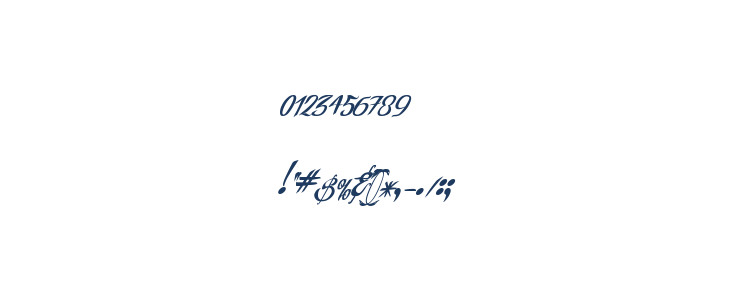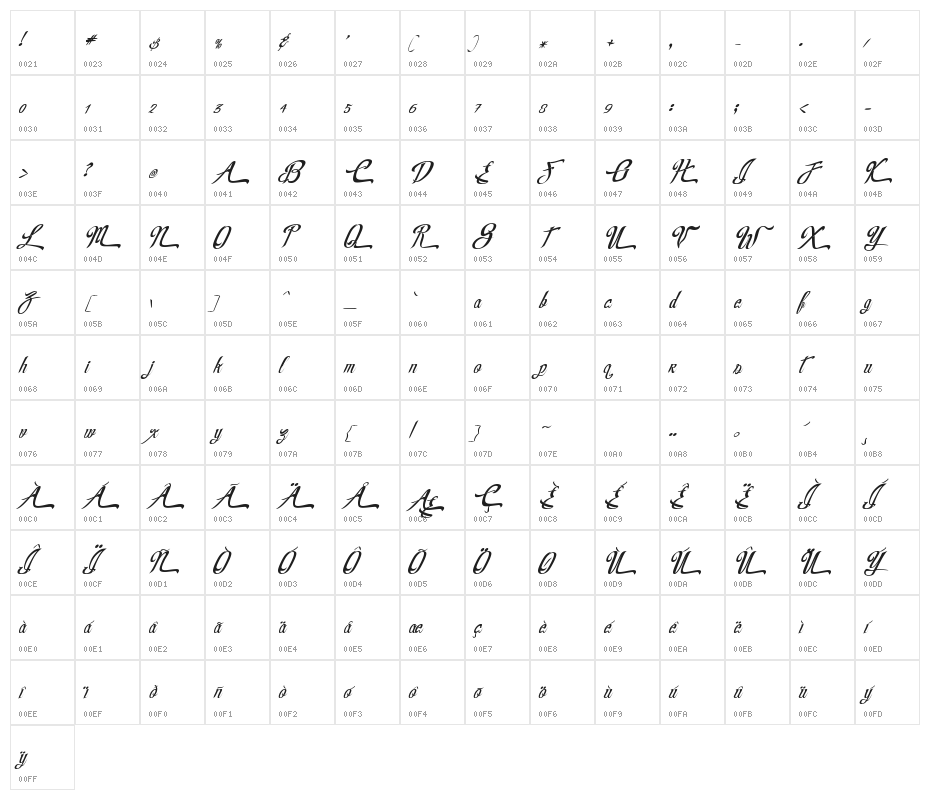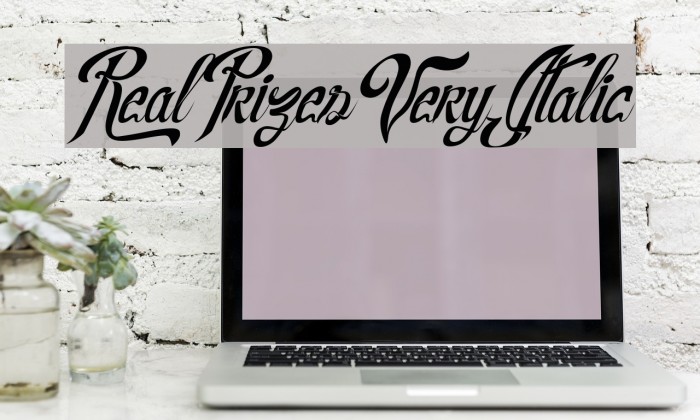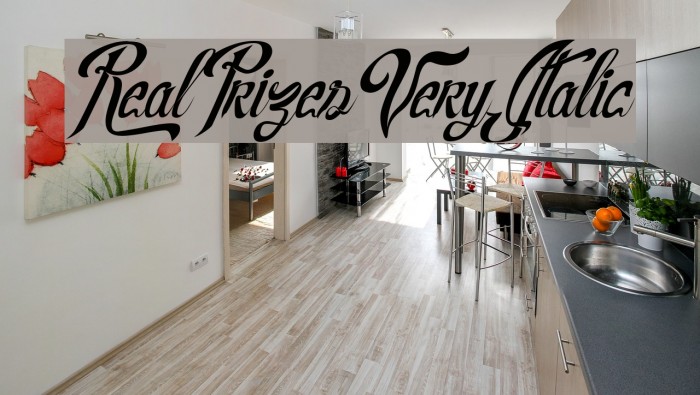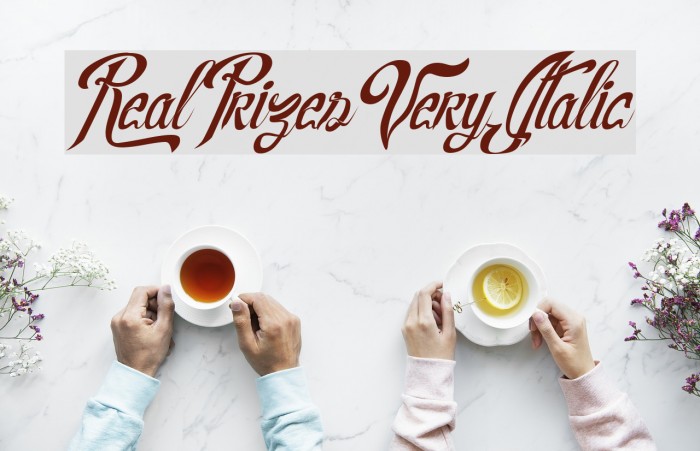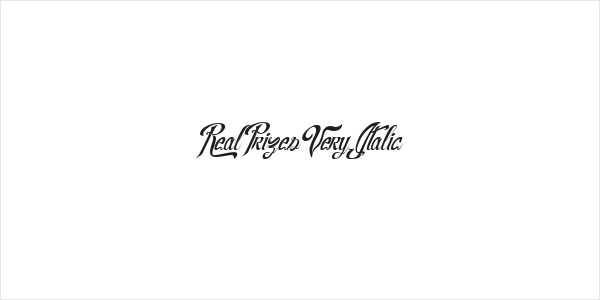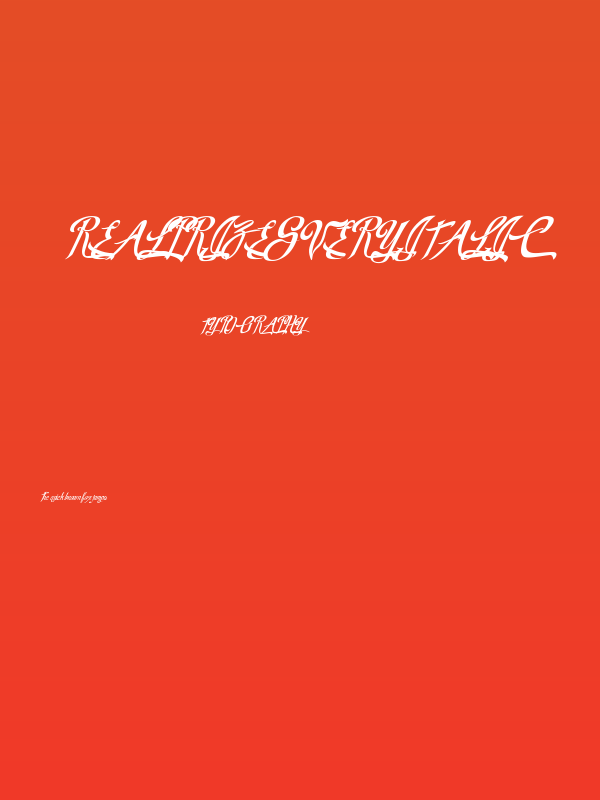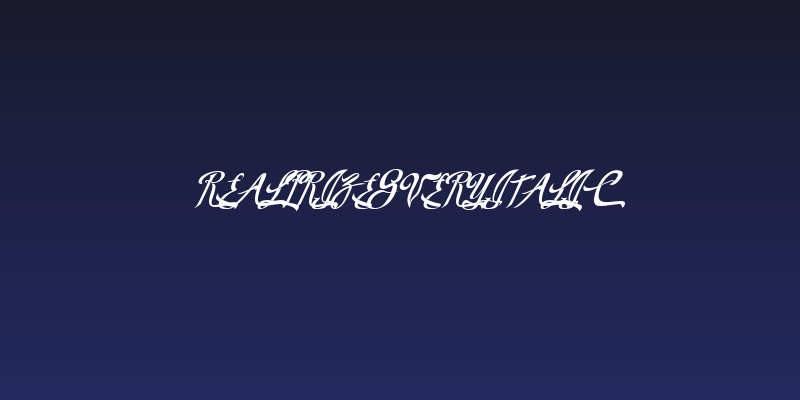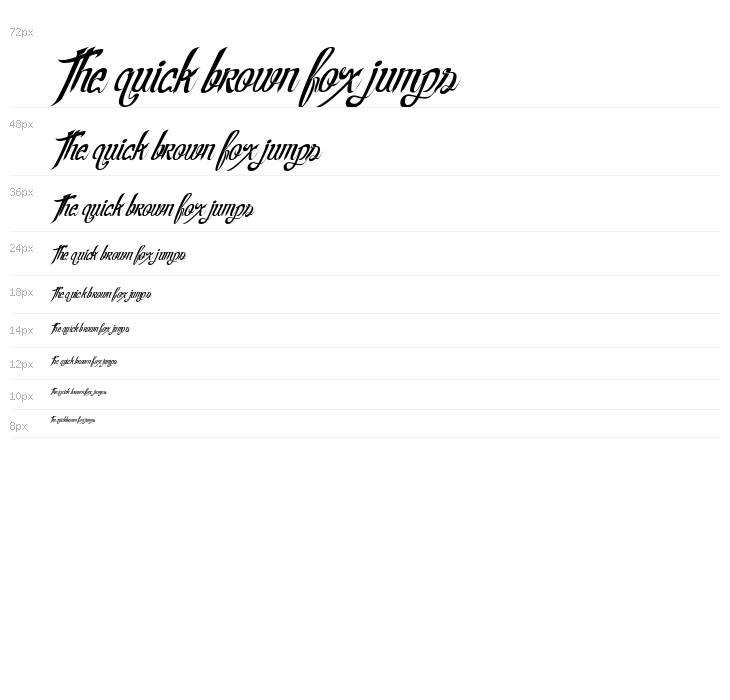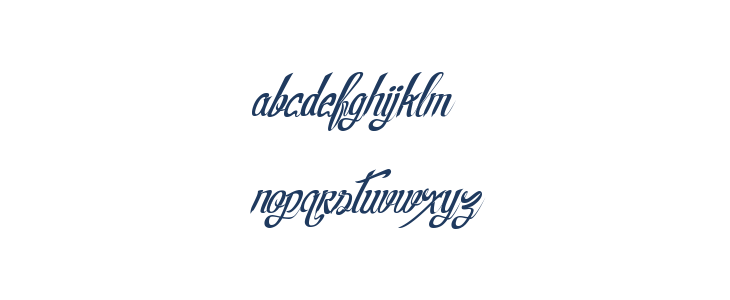
RealPrizesVeryItalic Font
RealPrizesVeryItalic Description
This font showcases a highly stylized and decorative script with an elegant and flowing design. The characters are intricately crafted with exaggerated curves and flourishes, giving it a sophisticated and artistic appearance. The uppercase letters are particularly ornate, featuring elaborate loops and swirls that add a sense of grandeur. The lowercase letters maintain the same level of detail, ensuring consistency throughout the typeface. The numbers and special characters are equally ornate, making this font suitable for projects that require a touch of elegance and creativity. The overall design is reminiscent of calligraphy, with a modern twist that makes it stand out.
| Proposed Projects | Ideal for wedding invitations, luxury branding, artistic posters, and elegant packaging. |